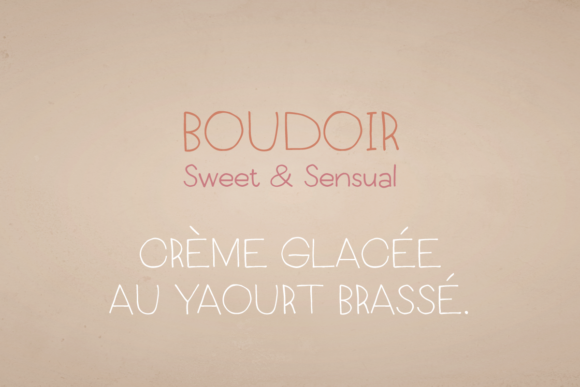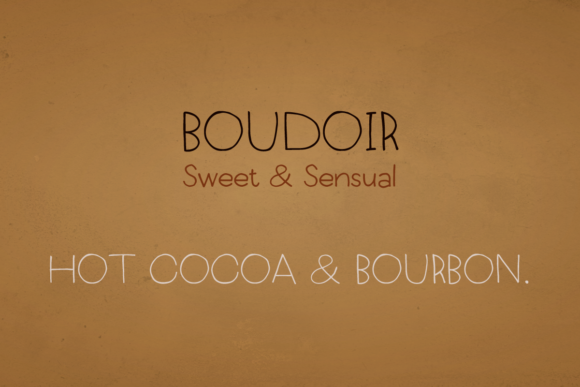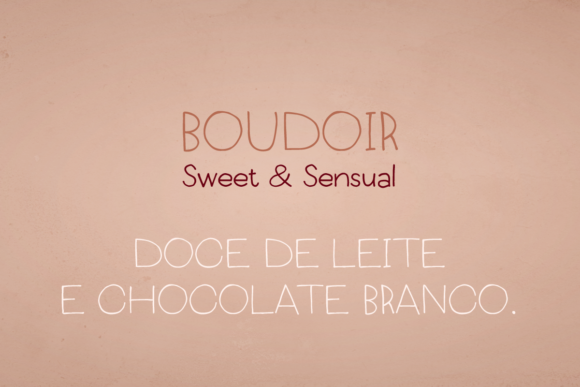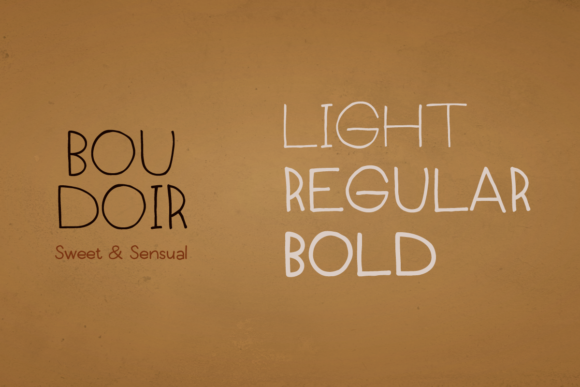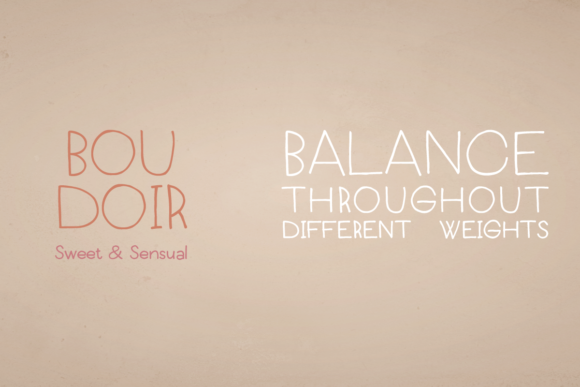
Welcome to the Boudoir Font: A Sweet and Sensual Design Companion
Have you ever been in the middle of a design project, and suddenly, you just can’t seem to find the right font? I recall a particularly frustrating experience while working on a boudoir photography client’s branding. I needed a font that exuded both sophistication and playfulness, but everything I tried seemed either too bland or too over-the-top. That’s when I stumbled upon the Boudoir font, and let me tell you, it was love at first sight! 💕
A First Impression: What Makes Boudoir Special
The Boudoir font is a simple, hand-drawn sans serif that strikes the perfect balance between sweet and sensual, yet remains uncluttered and straightforward. It draws some playful capital shapes from the all-caps Baronessa font and borrows inspiration from old classics, giving it a unique charm. Here are a few things I love about Boudoir:
• ✨ Sweet and Sensual Aesthetic: The font has a delicate, hand-drawn feel that adds a touch of intimacy and allure to any design.
• ✅ Versatility: Its simple, uncluttered design makes it suitable for a wide range of projects, from romantic getaways and fashion brands to wedding invitations and more.
• 💡 Playful Capital Shapes: The inspiration from Baronessa gives Boudoir its distinctive, playful capital letters that add a bit of flair to your text.
Honest Review: The Good, the Bad, and the Quirky
No font is perfect, and Boudoir has its quirks. Here are a few things to keep in mind:
• 🤔 Limited Formality: Boudoir’s playful nature means it might not be the best fit for very formal or corporate projects. It’s perfect for where you want to inject some personality but might not suit a law firm’s website, for example.
• ⚠️ Glyph Variety: While Boudoir offers some lovely stylistic alternates, it might not have the extensive glyph library that some other fonts do. This could be a consideration if you’re working with a language that requires special characters.
The Story Behind Boudoir: A Glimpse into Its Design
The Boudoir font’s design story is one of blending classic inspirations with modern sensibilities. Its creator aimed to craft a font that felt both intimate and elegant, drawing from the allure of vintage typography while ensuring it remained fresh and versatile. The result is a font that feels at home in boudoir photography, fashion branding, and anywhere a touch of sophisticated charm is desired.
Is Boudoir suitable for body text? While Boudoir is beautiful, its hand-drawn nature makes it more suited for headlines and short paragraphs. For longer body text, consider a more straightforward sans serif.
Does Boudoir support multiple languages? Boudoir offers a range of characters, but its glyph library might be limited compared to other fonts. Check the font’s documentation for specific language support.
Boudoir is more than just a font; it’s a design companion that brings a touch of sweetness and sophistication to your projects. With its unique blend of playfulness and elegance, it’s sure to become a favorite in your design arsenal.